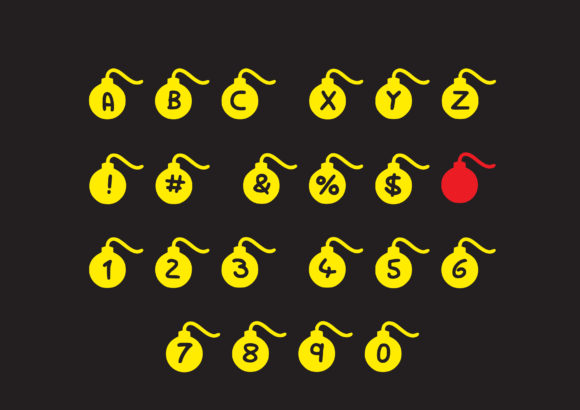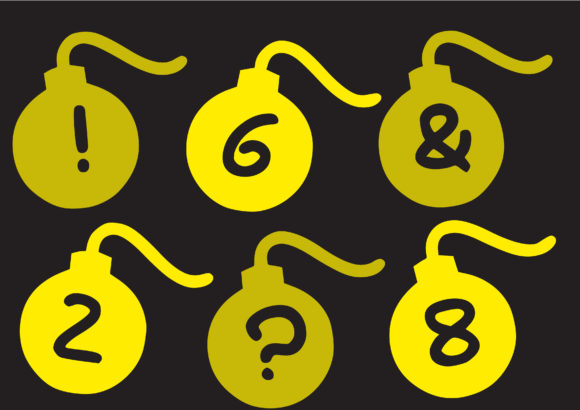
Introduction to Play Bomb Font
Imagine you’re working on a creative project, and you need a font that will make it stand out. You scroll through your design resource library, and suddenly, you stumble upon the perfect font – the Play Bomb Font. This cool-looking and interesting decorative font features a bomb on each character, adding an edgy touch to any text.
As a designer, you know how valuable a high-quality font can be. The Play Bomb Font is not just a design element; it’s a game-changer. With its transparent background and unique design, it has the potential to elevate any creation. Whether you’re working on a free download project or a commercial design, this font will be an incredible asset to your fonts’ library.
Key Features of Play Bomb Font
- Unique Design: The Play Bomb Font is a creative and playful font, perfect for adding a touch of fun to your design project.
- Transparent Background: This font features a transparent background, allowing for easy integration into your design without any distractions.
- Perfect for Creative Projects: The Play Bomb Font is ideal for use in creative projects such as logos, posters, and social media graphics, where a playful and eye-catching font is required.
Honest Review: Play Bomb Font
I recently had the chance to try out the Play Bomb Font, and I’m excited to share my thoughts on this design resource.
- The Play Bomb Font offers a high quality design that’s perfect for creative projects.
- The transparent background makes it easy to customize and integrate into any design.
- The font’s unique style is perfect for adding a touch of personality to any design project.
- The font may not be suitable for all types of projects, particularly those that require a more formal or professional tone.
- The font’s bold style may be overwhelming for some designs, so it’s essential to use it sparingly.
Overall, I’m impressed with the Play Bomb Font. It’s a great addition to any designer’s toolkit, and its unique style makes it perfect for creative projects. With its high quality design and transparent background, it’s easy to customize and integrate into any design. While it may have some limitations, I think it’s definitely worth checking out.
The Play Bomb Font is ideal for creative projects that require a bold and playful touch. Use it for social media graphics, blog posts, or even advertising materials. Its transparent background makes it easy to layer over images or other design elements.
Does the Play Bomb Font have a transparent background?
Yes, the Play Bomb Font has a transparent background, making it ideal for use on images with complex backgrounds or for creating custom designs. The transparent background also allows for seamless integration with other design elements, giving you more flexibility in your creative project.